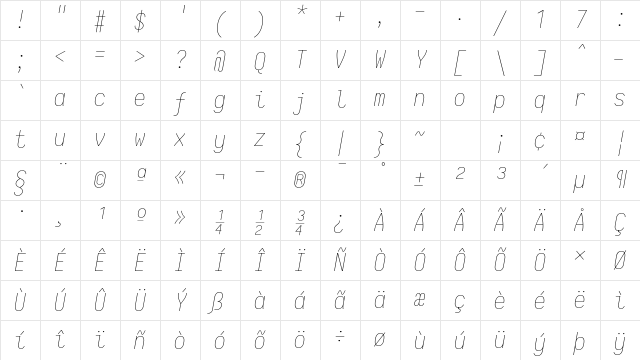
Iosevka NF Italic Free Font
Iosevka NF Italic
Foundry: Belleve Invis
Designer: Belleve Invis
Design Context for Iosevka NF
Iosevka NF is a composed and adaptable typeface that performs quietly and consistently across a wide range of design contexts. The slanted form adds forward momentum and visual energy.